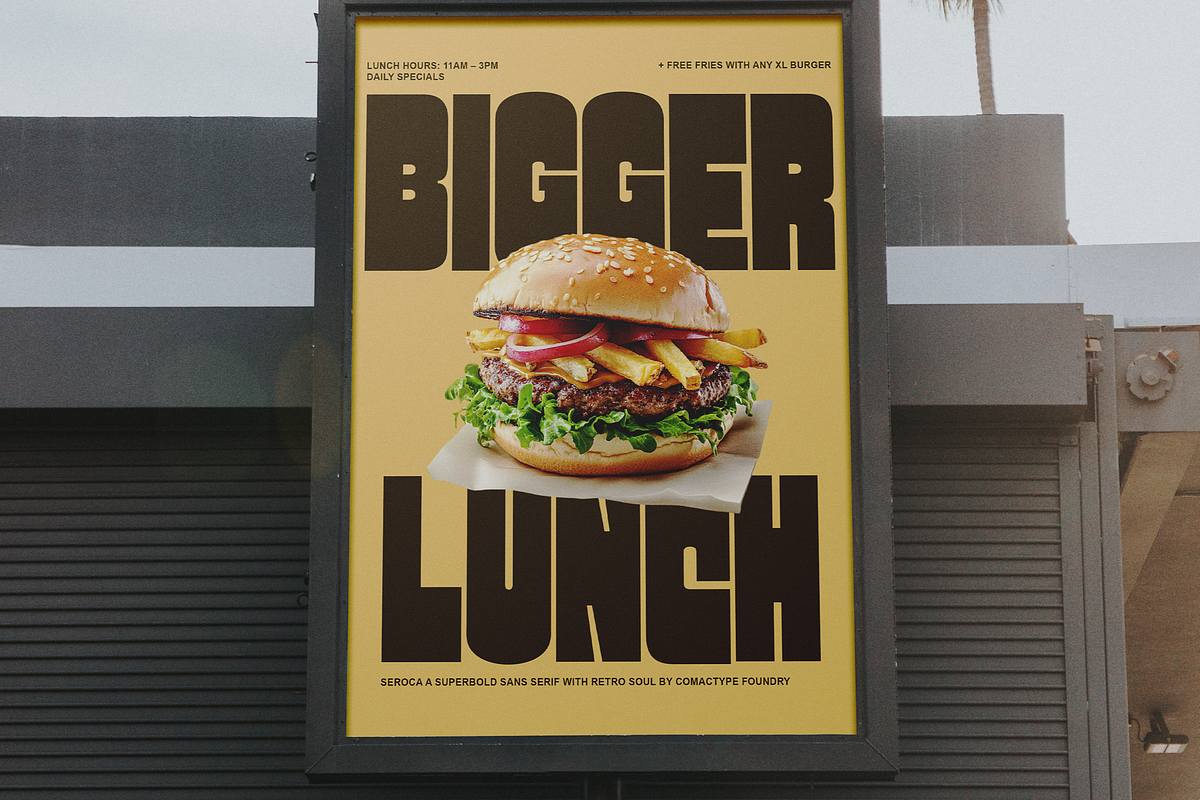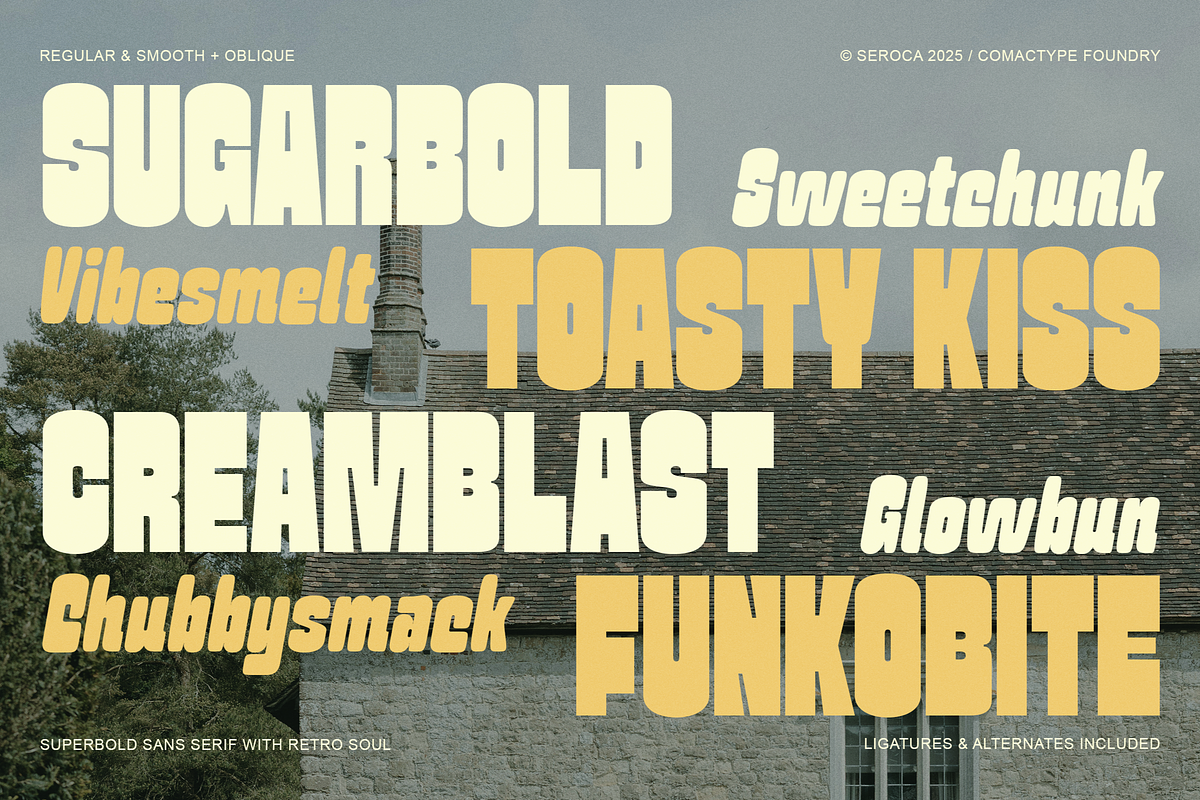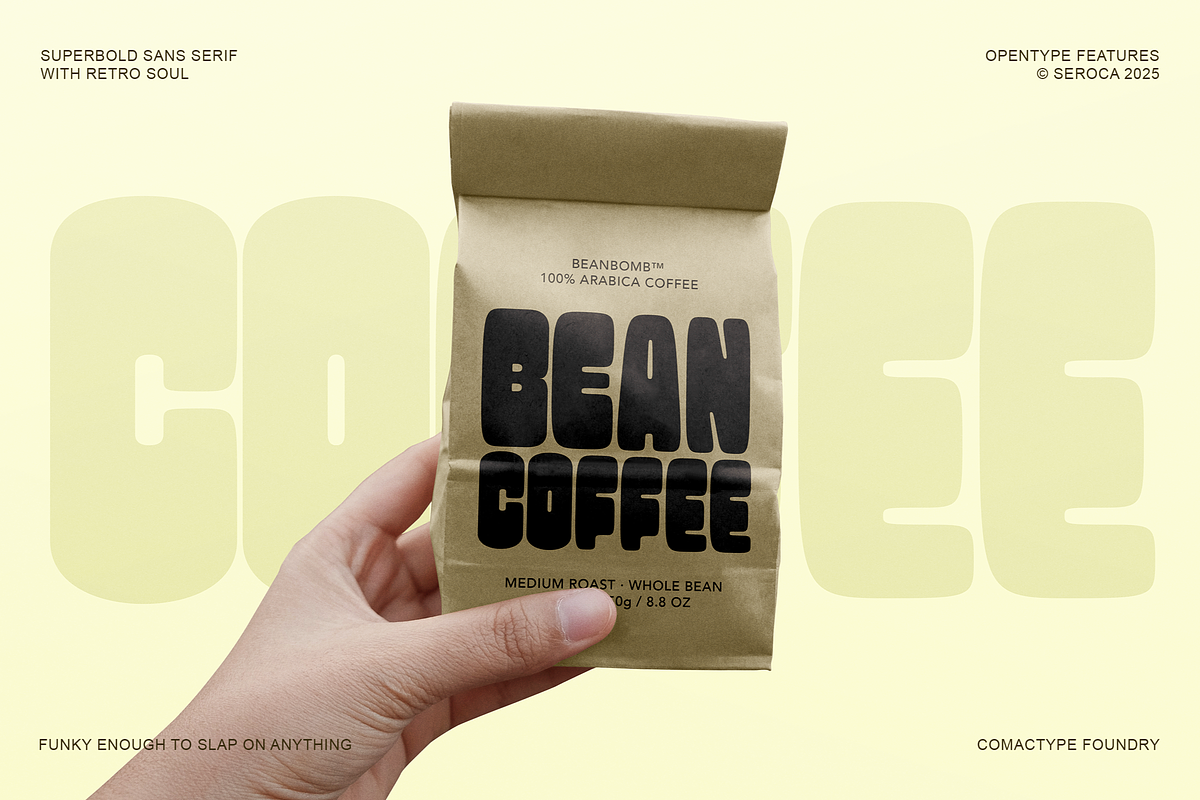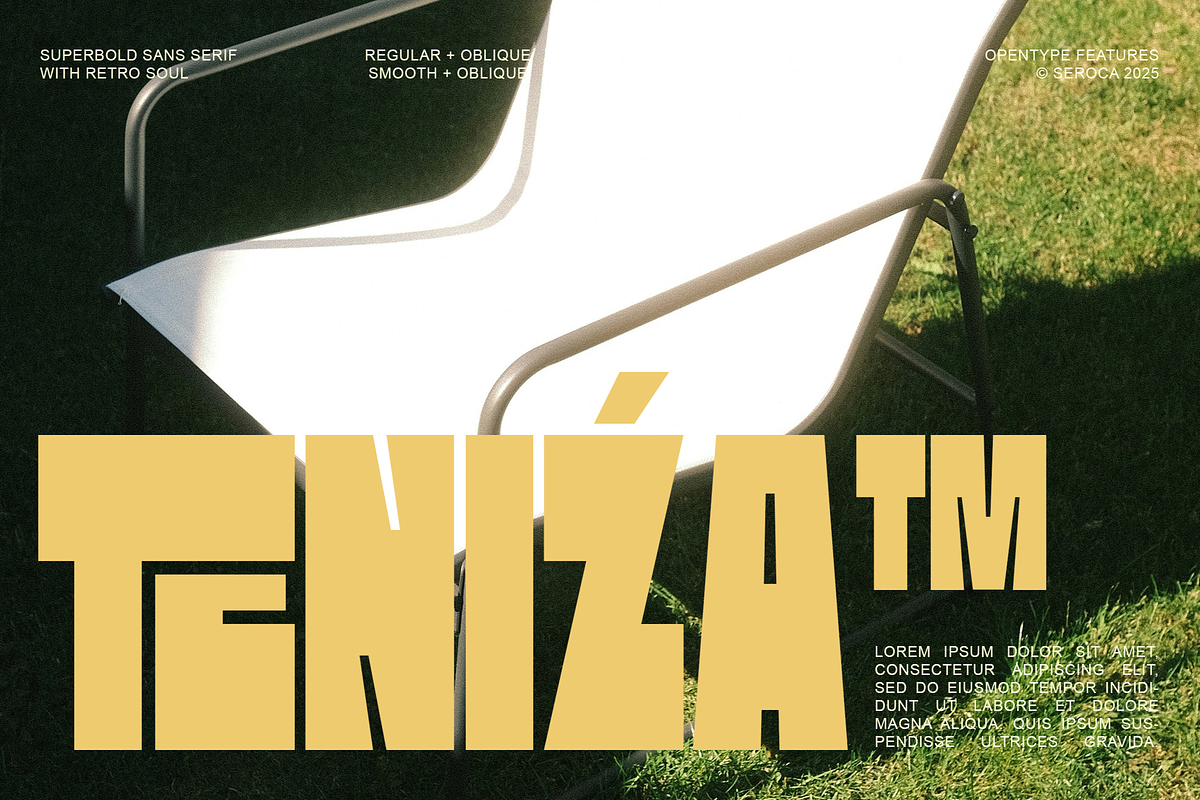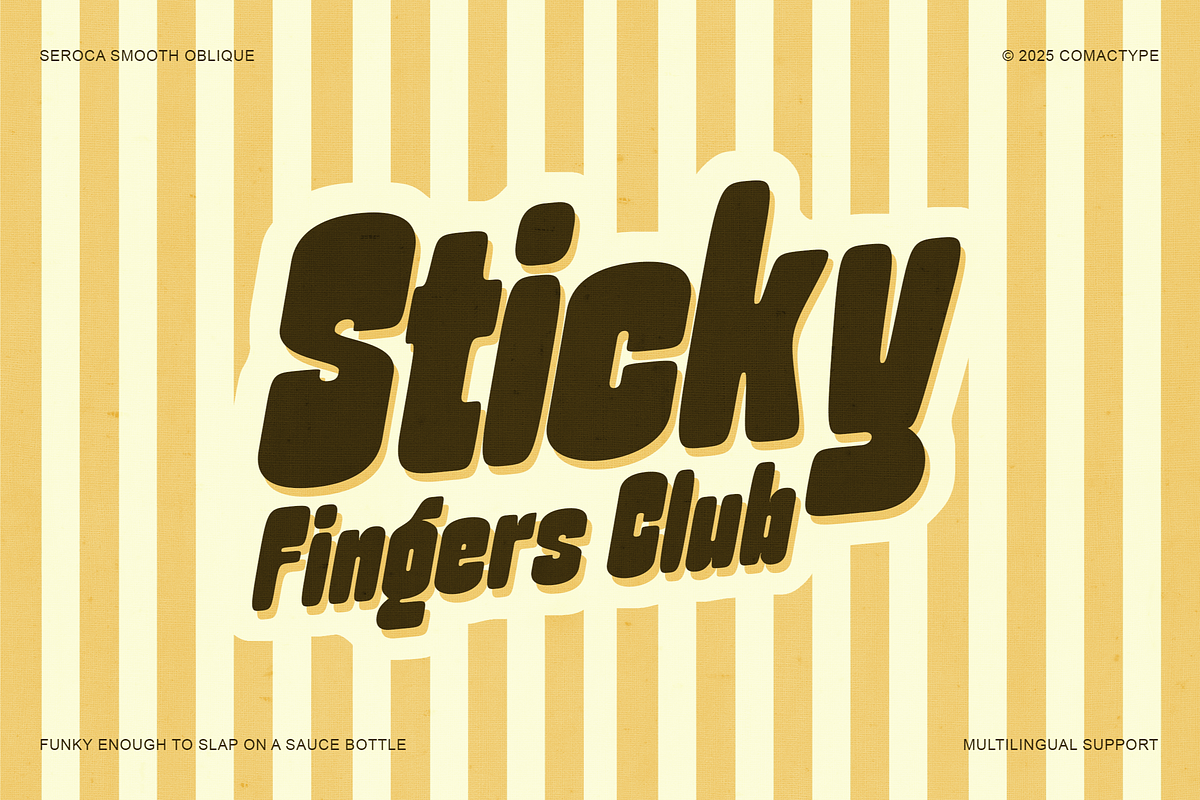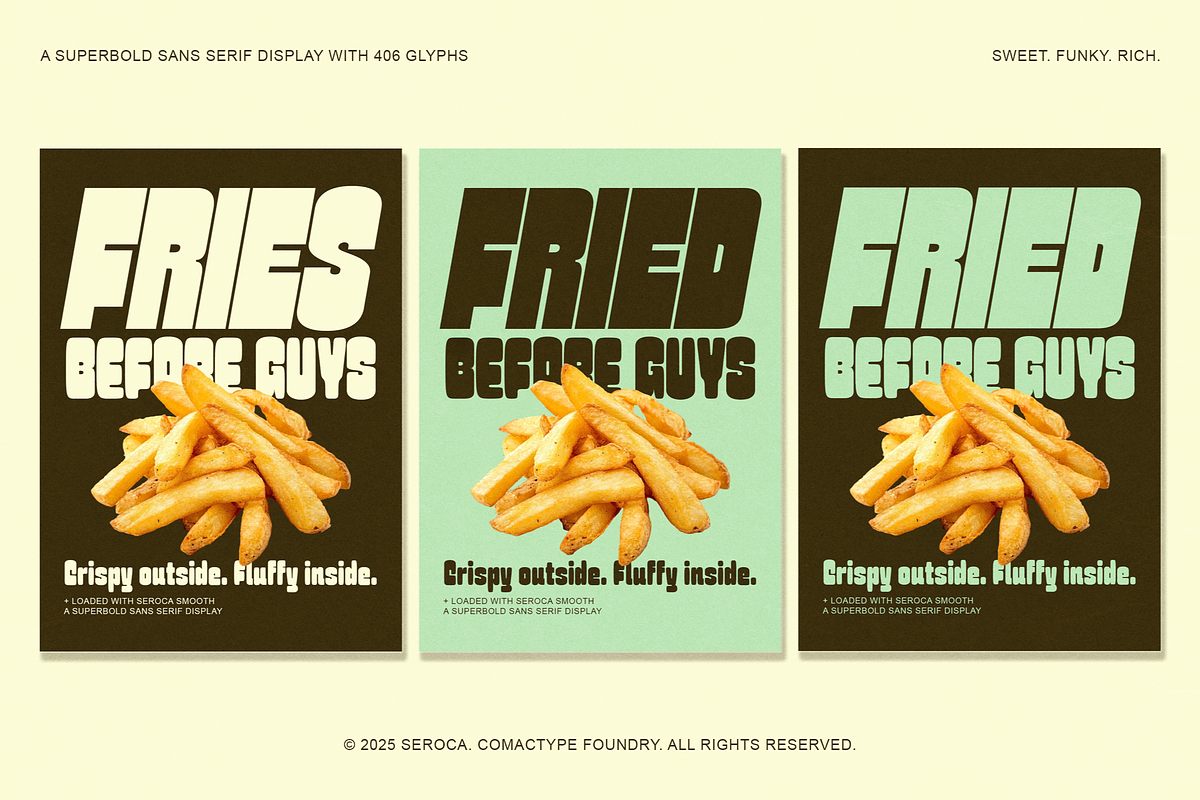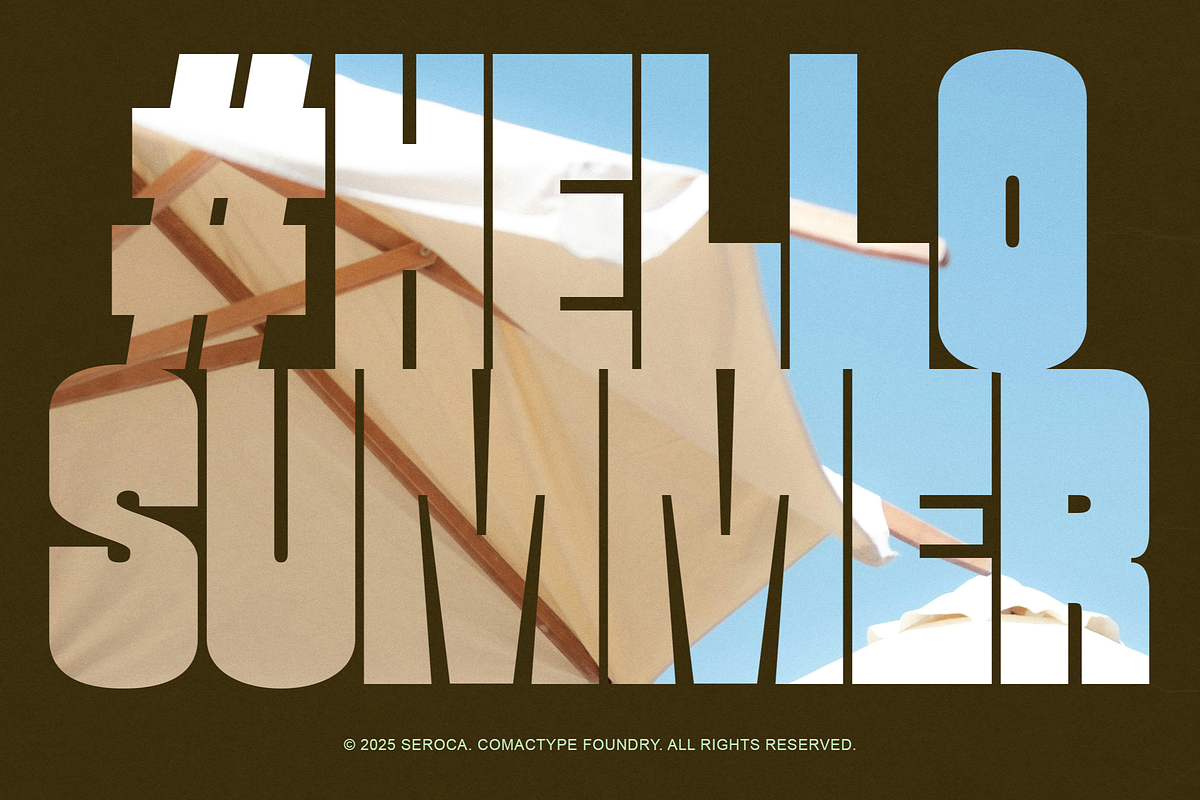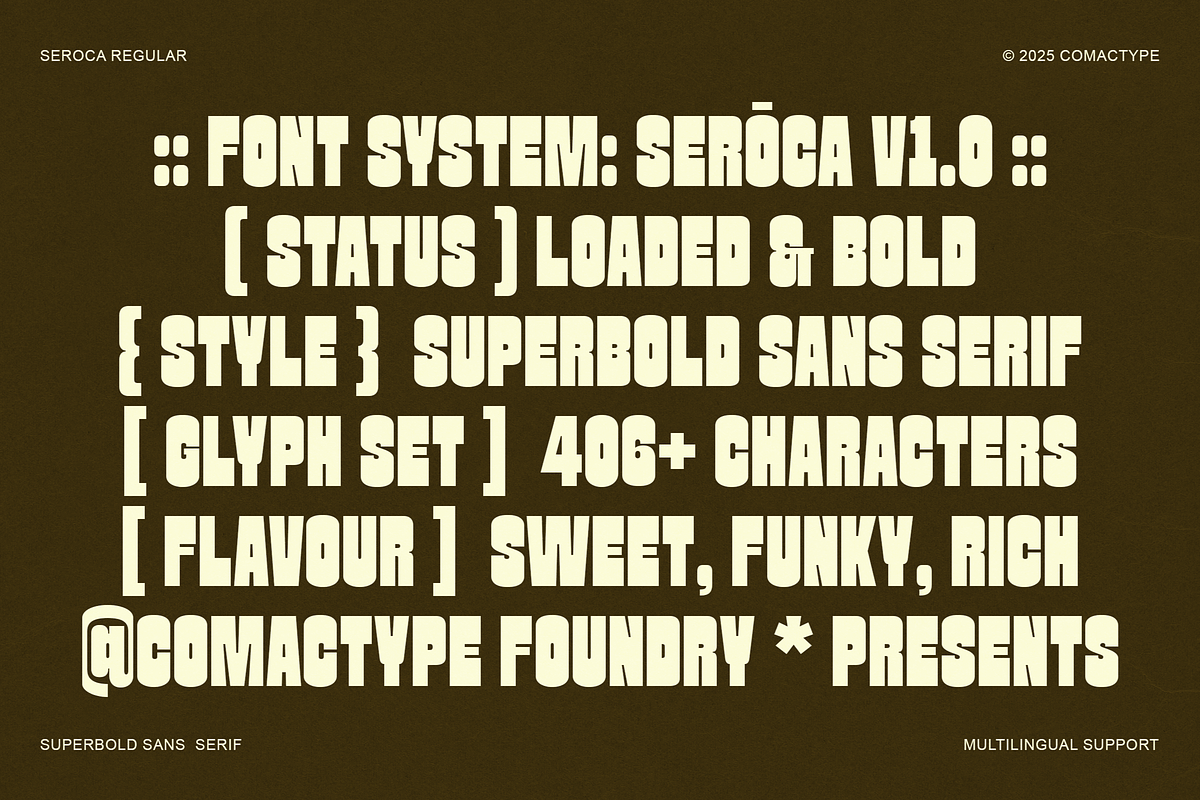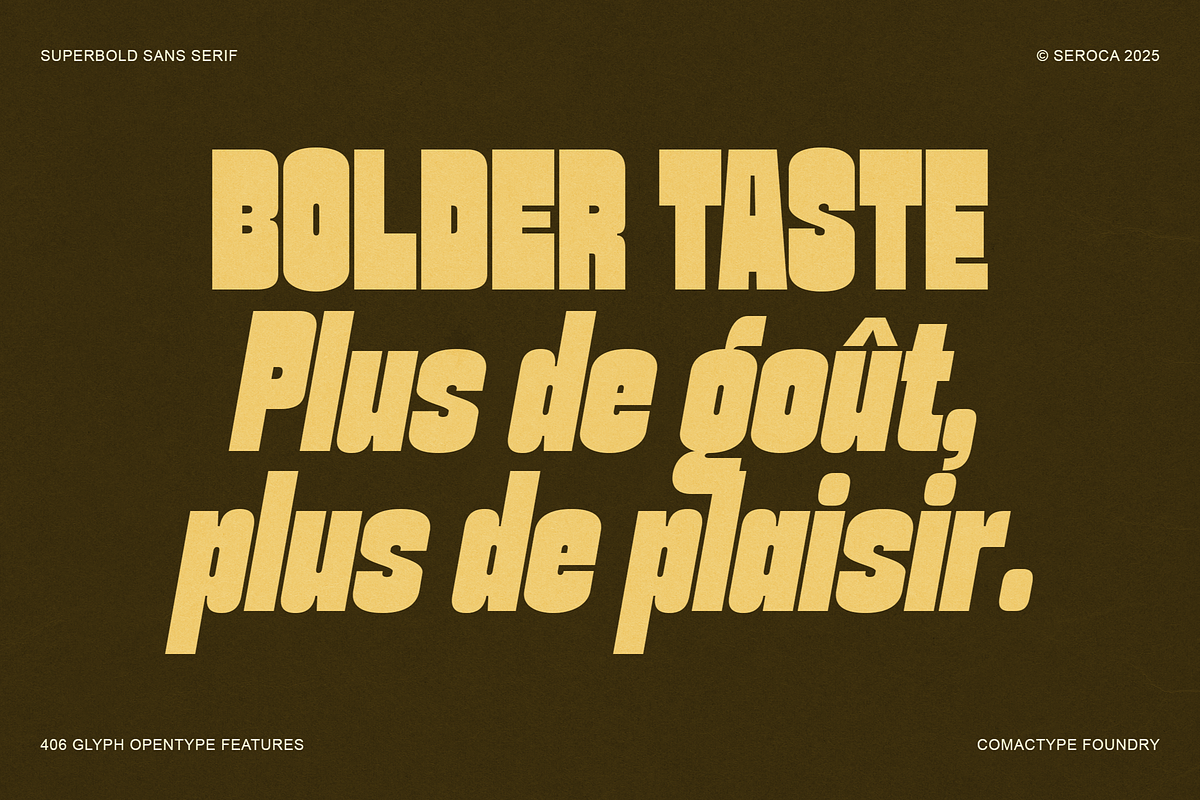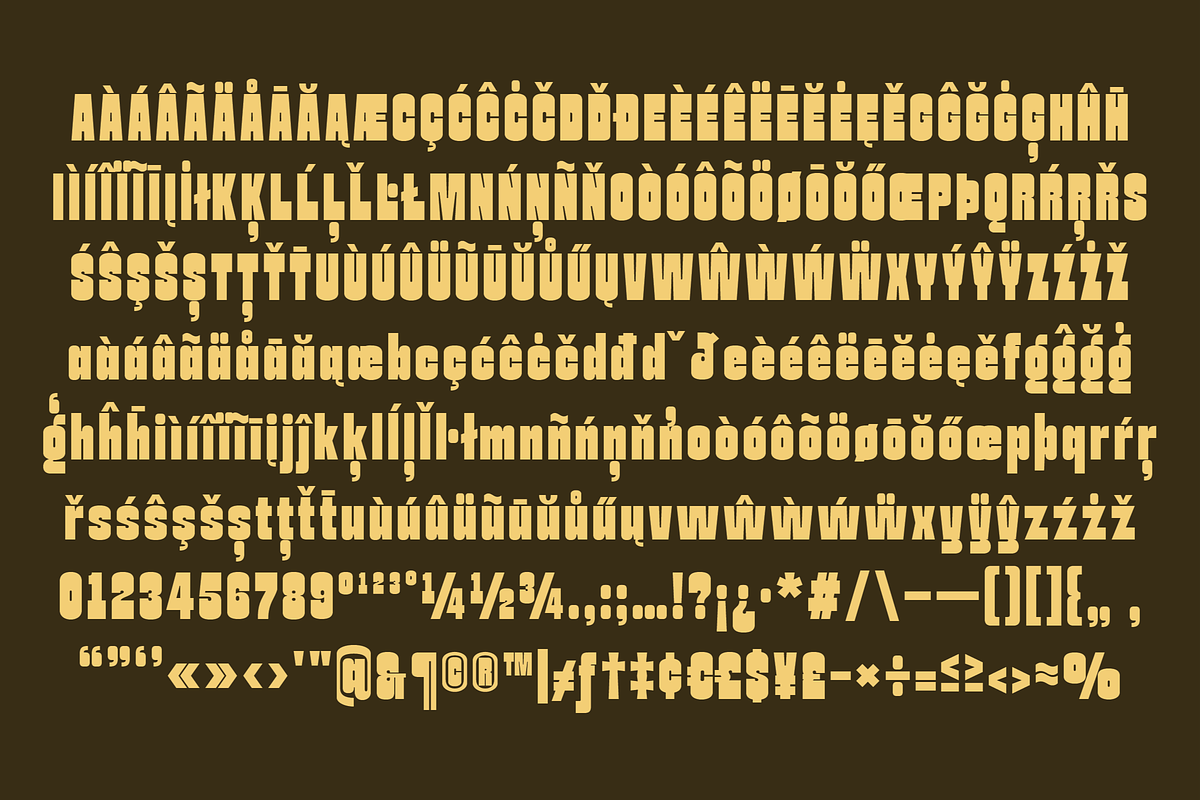
SEROCA - A Funky Sans Serif Font
Seroca is a super bold sans serif font with a funky, retro-inspired personality. Designed by Comactype Foundry, it features chunky letterforms, sharp inktraps, and playful shapes that make it perfect for bold design applications—like product labels, food packaging, or vintage-style posters.
Seroca comes in four styles: Regular, Oblique, Smooth, and Smooth Oblique, and includes full multilingual support and OpenType features. With its eye-catching presence and strong character, Seroca is made to stand out in any creative project.